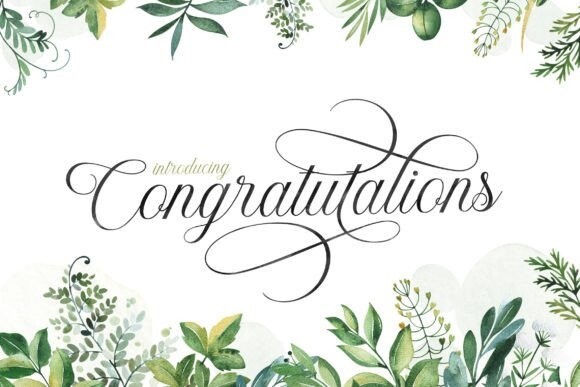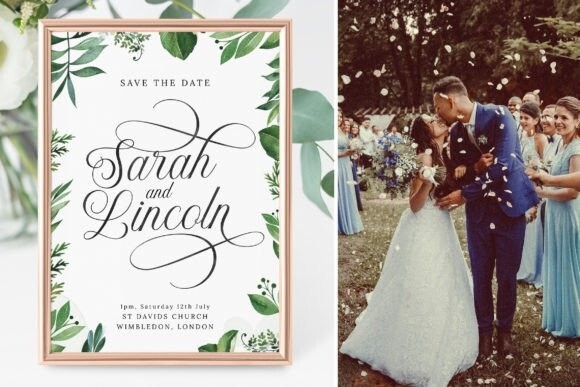
Congratulations Font
Congratulations is a graceful, modern calligraphic font. With its beautiful rhythm, this font will help you create gorgeous and classy compositions. Use it for branding projects, invitations, web graphics, cards, and many more! Congratulations is PUA encoded which means you can access all the glyphs and ligatures with ease!